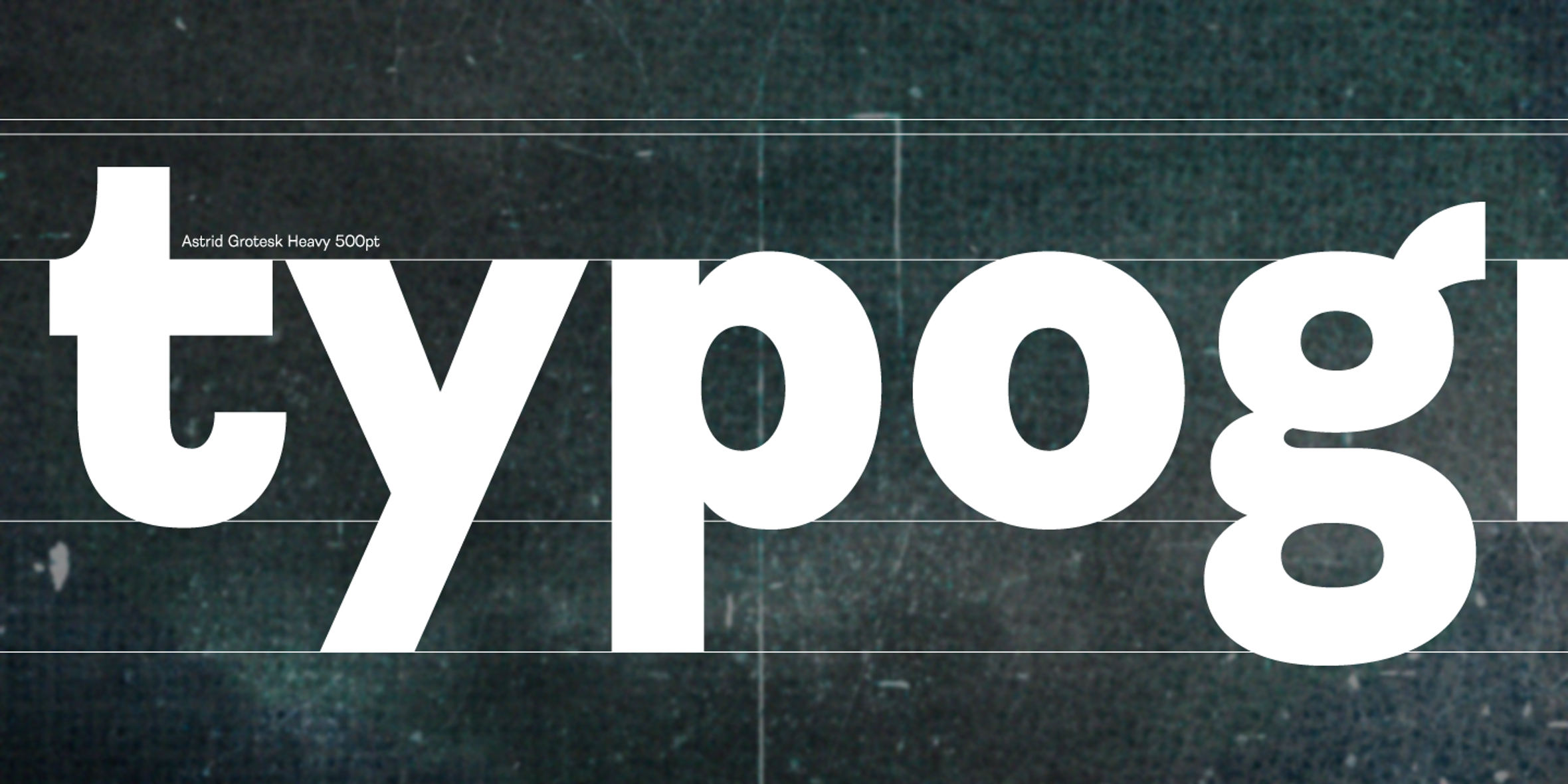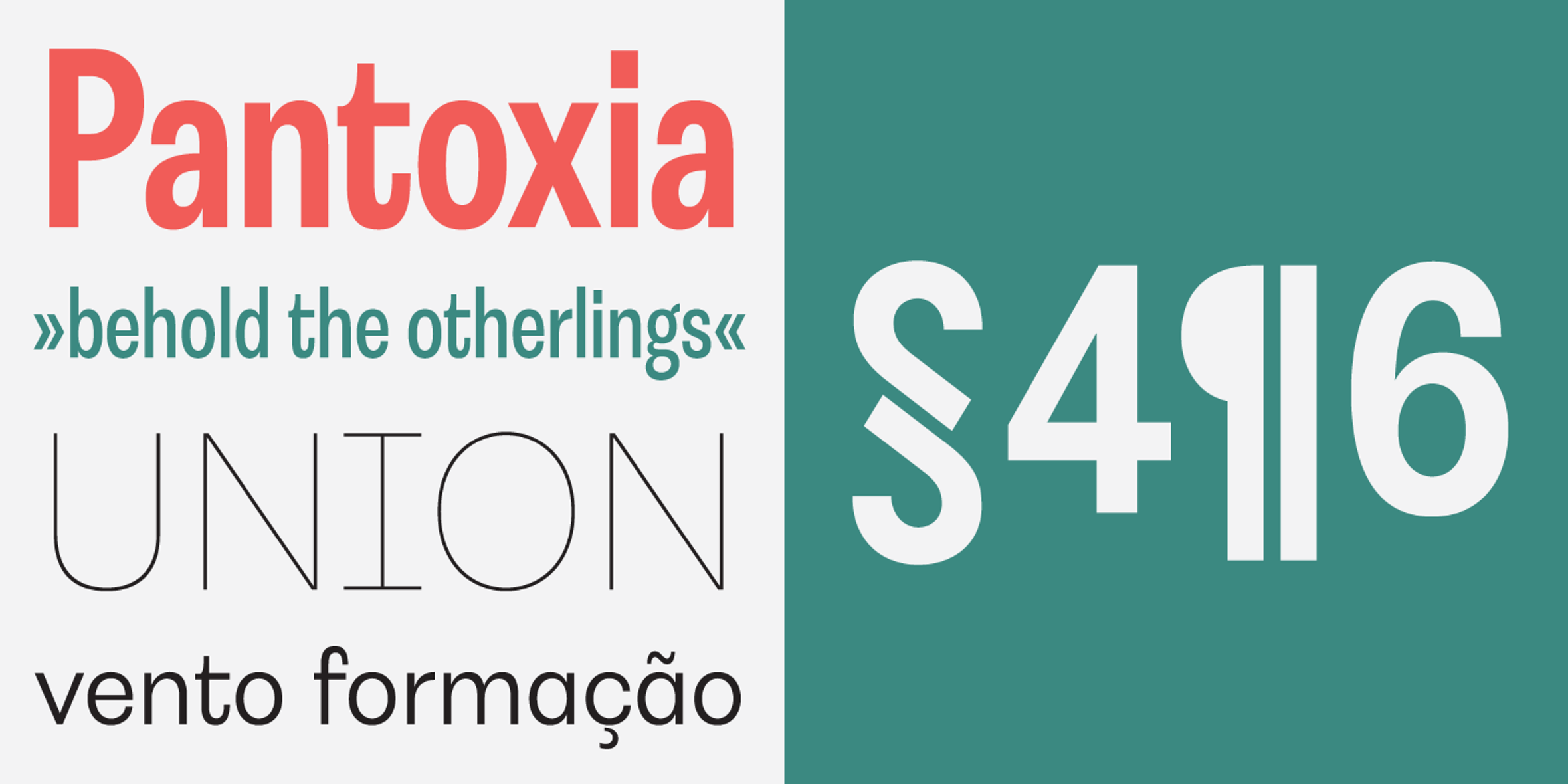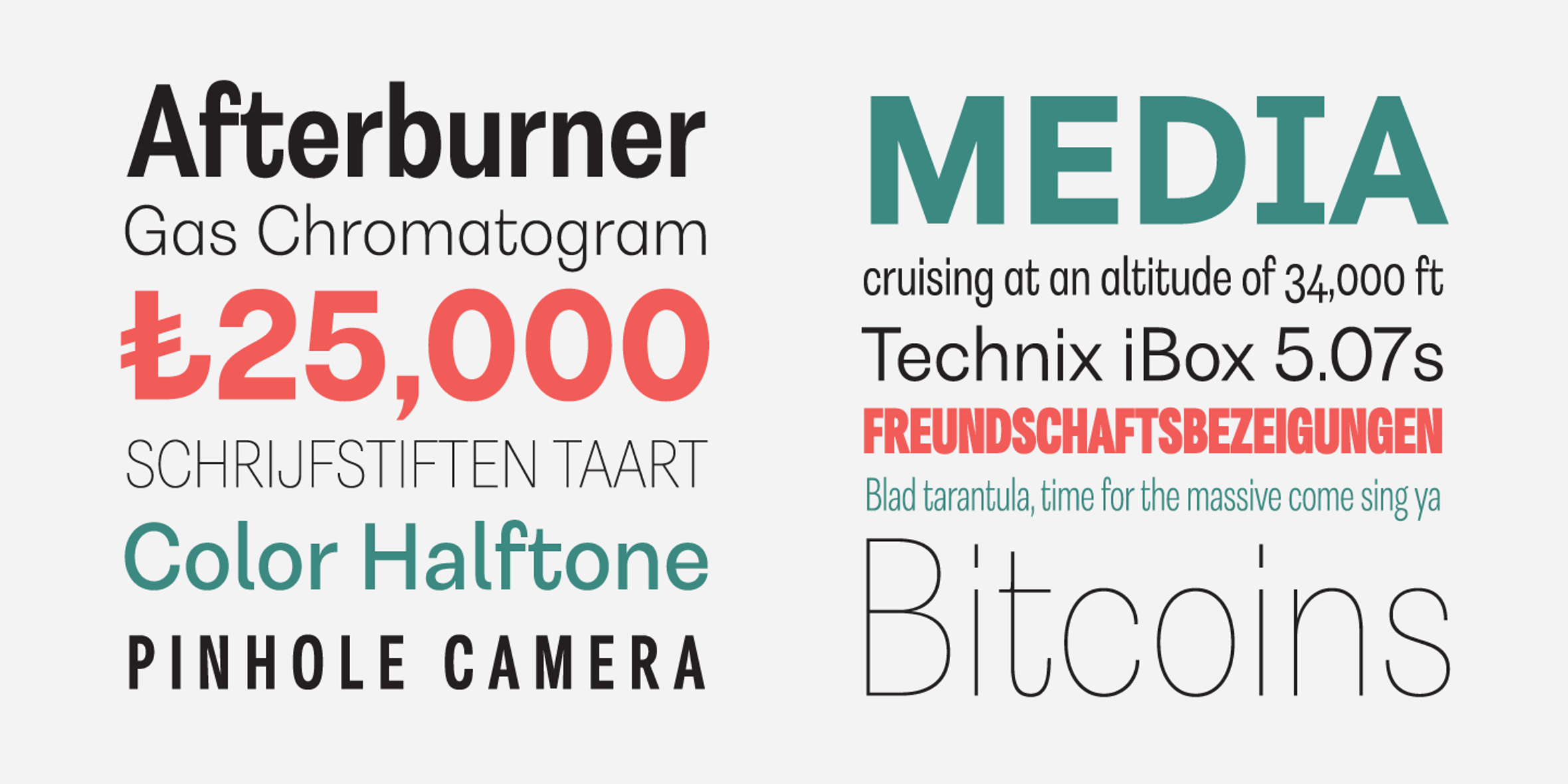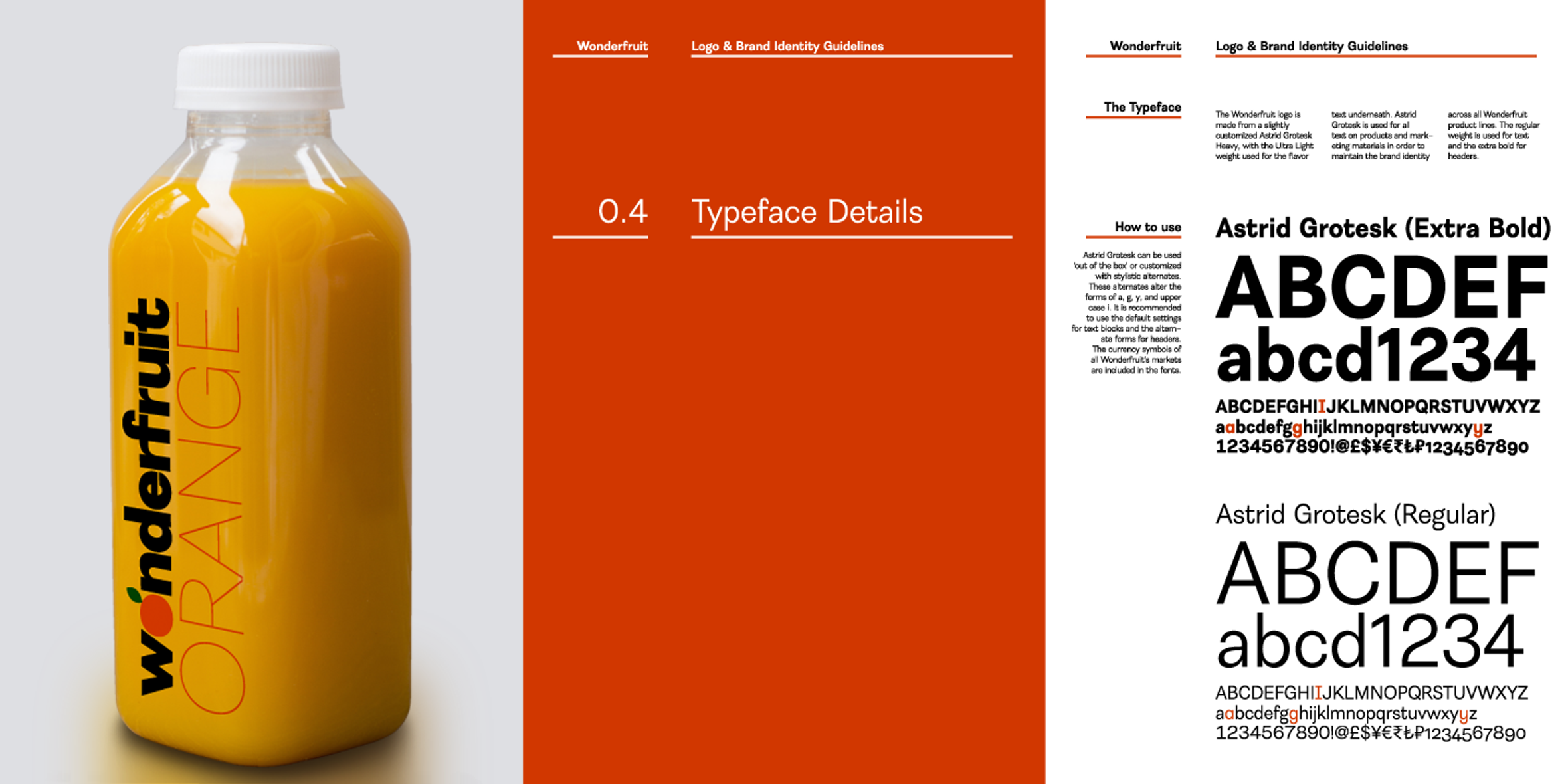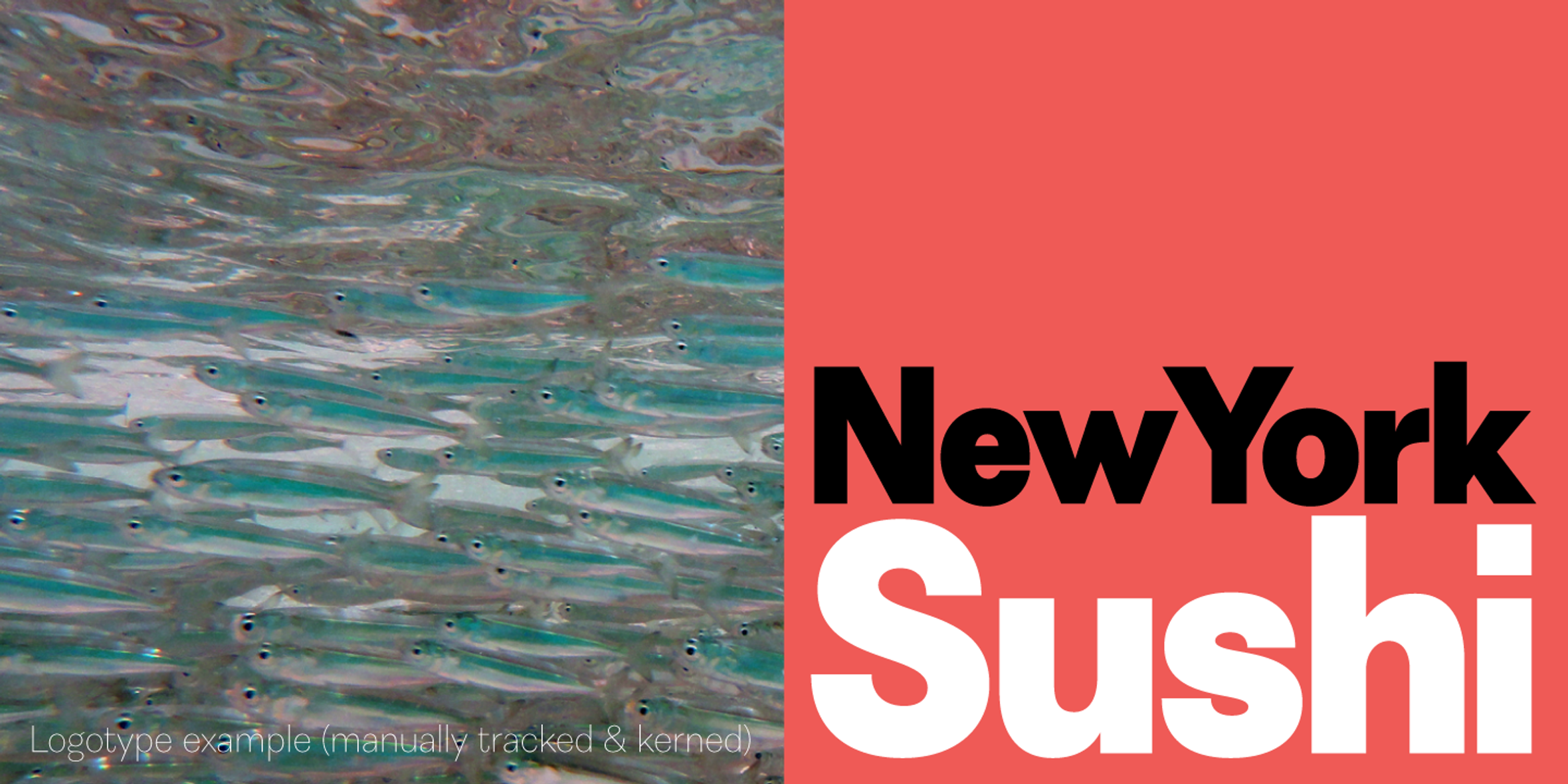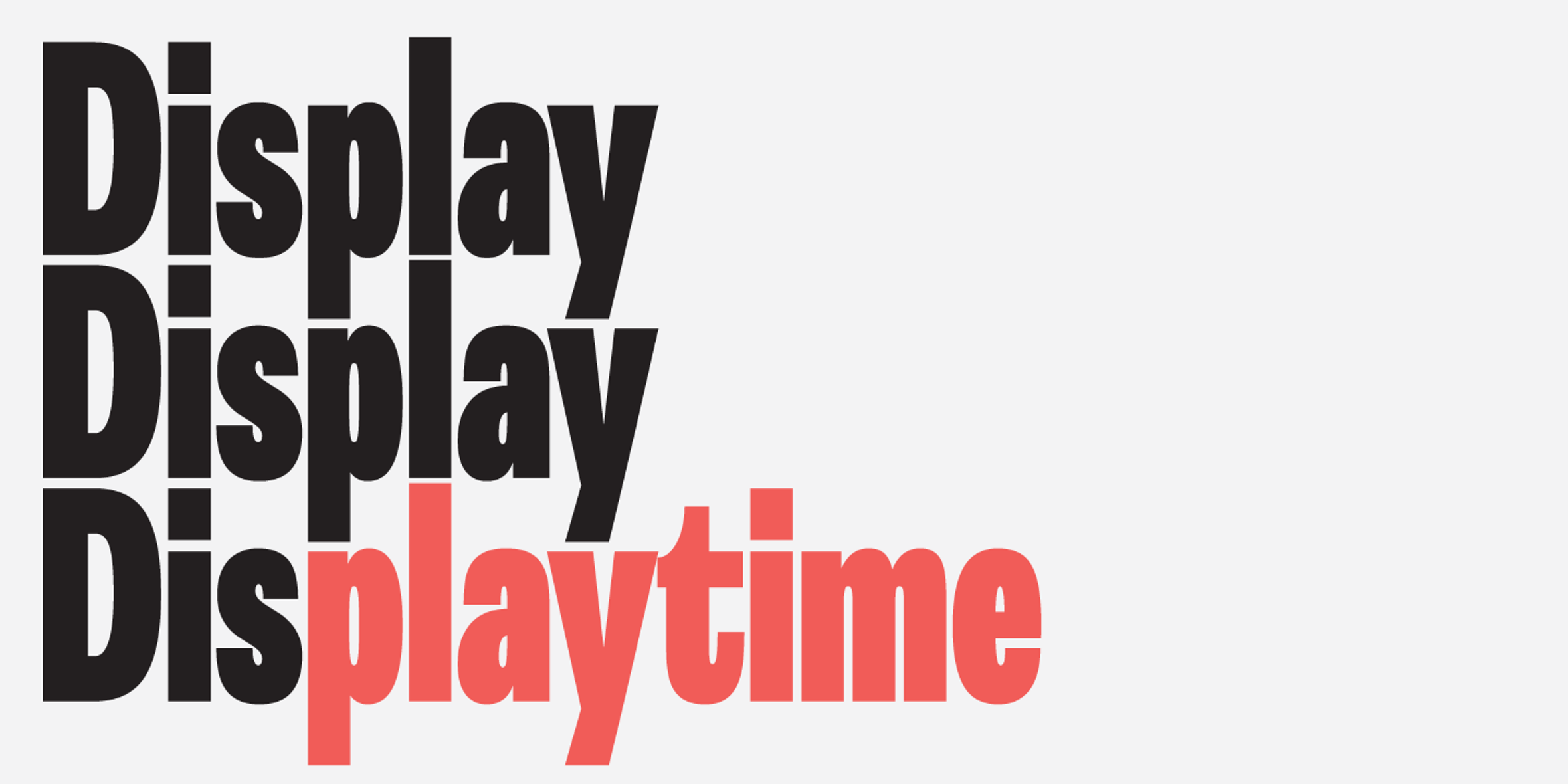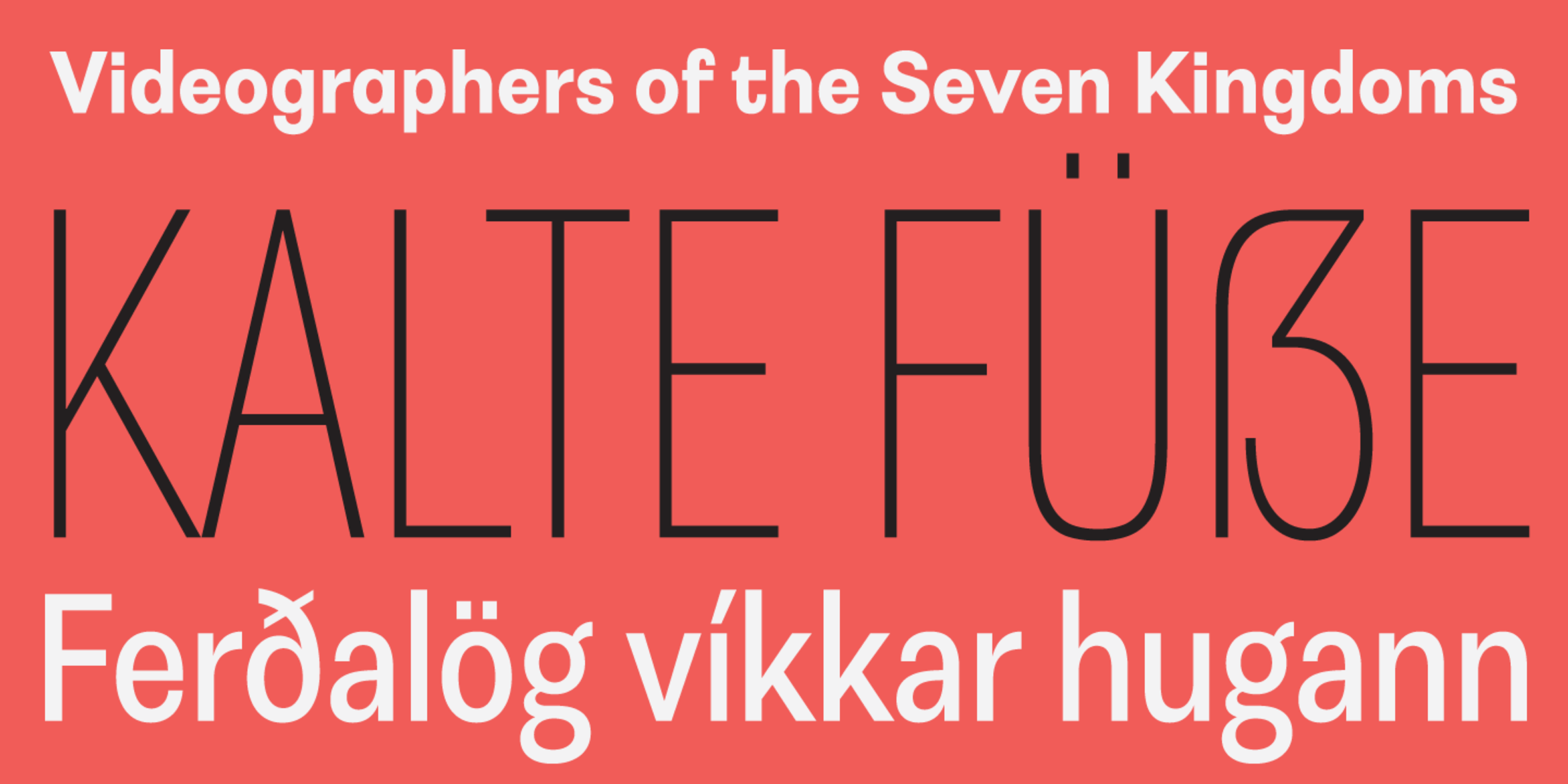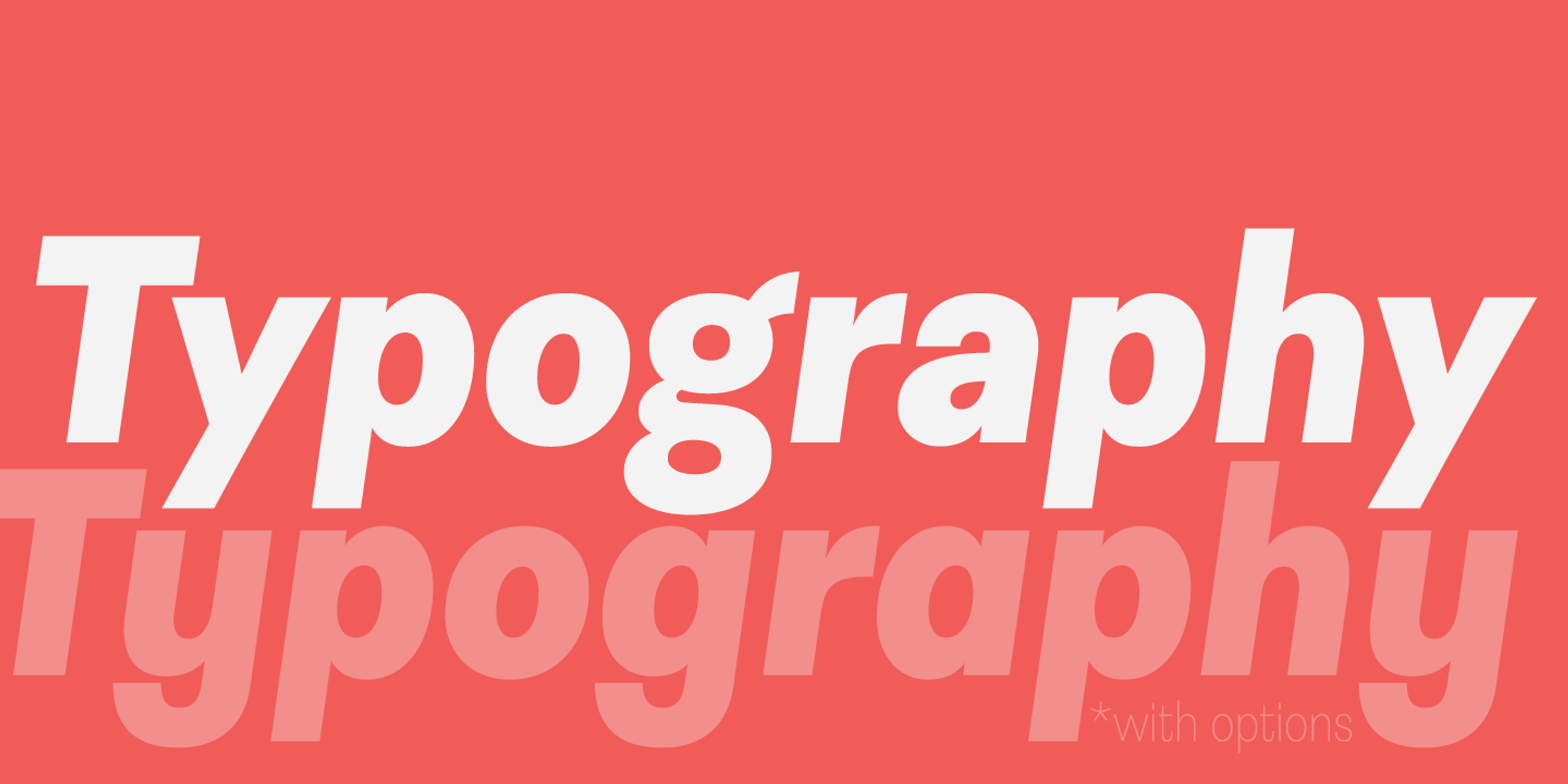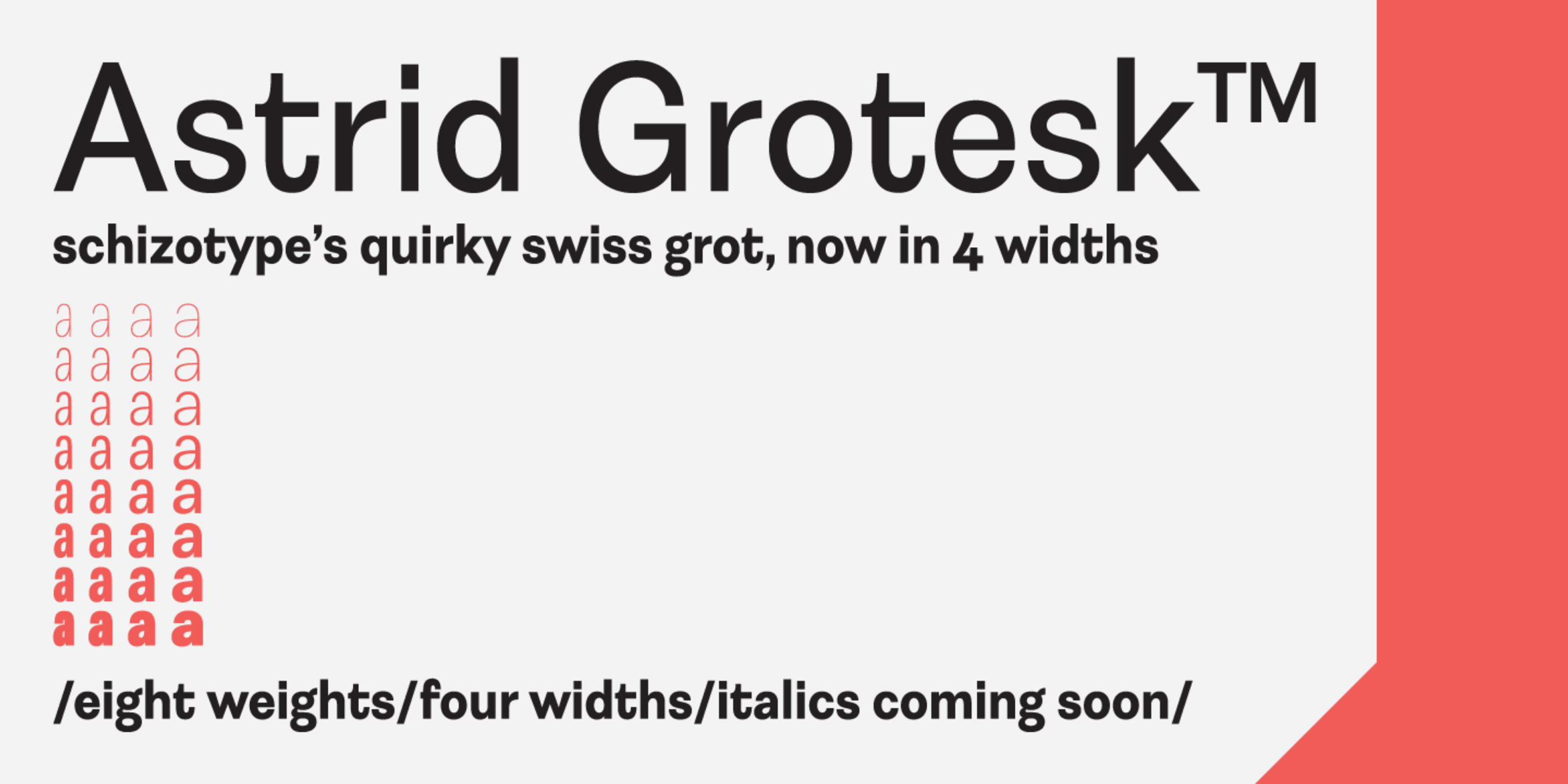
Astrid Grotesk
Astrid Grotesk is a neo-grotesk workhorse. It is a normalized version of Schizotype Grotesk. Normalized; not neutralized. Where many neo-grots appear cold with harsh neutrality, Astrid emanates a warmth from its clunkiness. Bored of those other Swiss-style typefaces? Astrid Grotesk could be the face you need to breathe new life into your designs. With 40 styles and coupled with the more eccentric Schizotype Grotesk, you’ve got an unorthodox branding system ready to use straight out of the box.
- Fractions
- Old Style Numerals
- Ordinal Numerals
- Stylistic Alternates
- Subscript
- Superscript
- Tabular Numerals